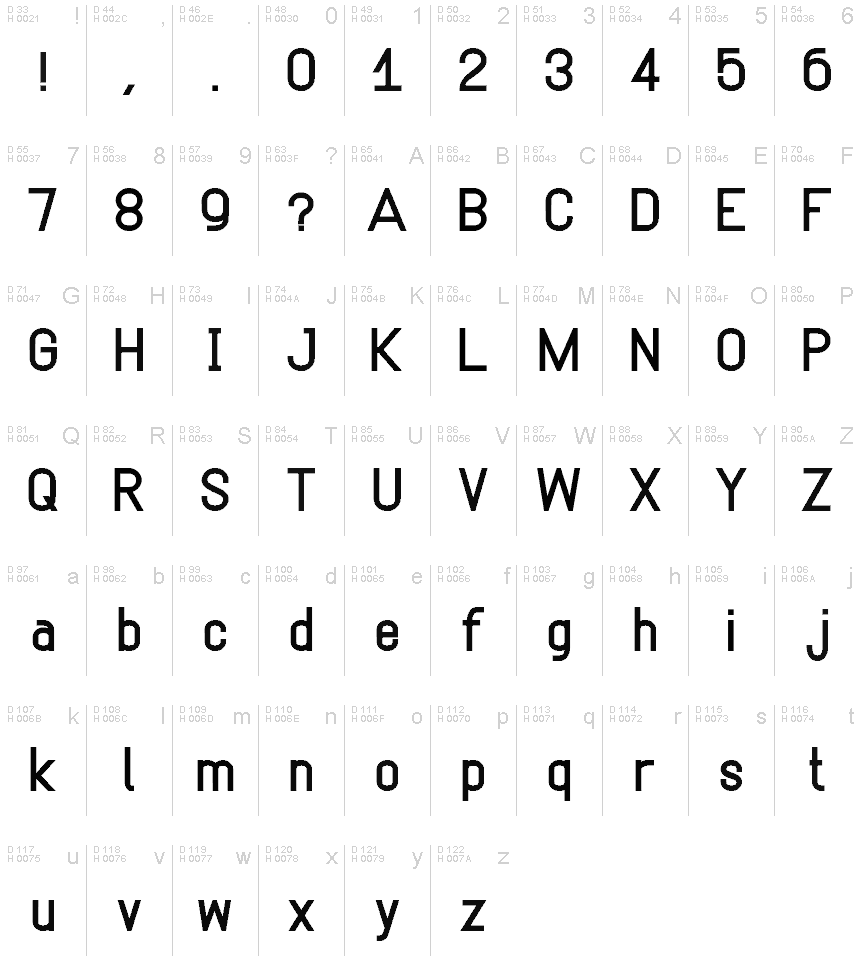
MARKSMAN
Marksman by Geronimo Font Studios is a bold, geometric sans-serif font that exudes a sense of precision and steadiness. Its sharp, angular letterforms convey a strong, authoritative presence, making it well-suited for use in branding, headlines, and display typography.
The font's clean, minimalist aesthetic lends it a contemporary feel, while its inherent legibility ensures readability in a variety of applications, from print to digital media. Marksman's versatility extends to diverse design contexts, from sleek, modern websites to impactful advertising campaigns, where its distinctive character can help create a memorable and visually striking impression.